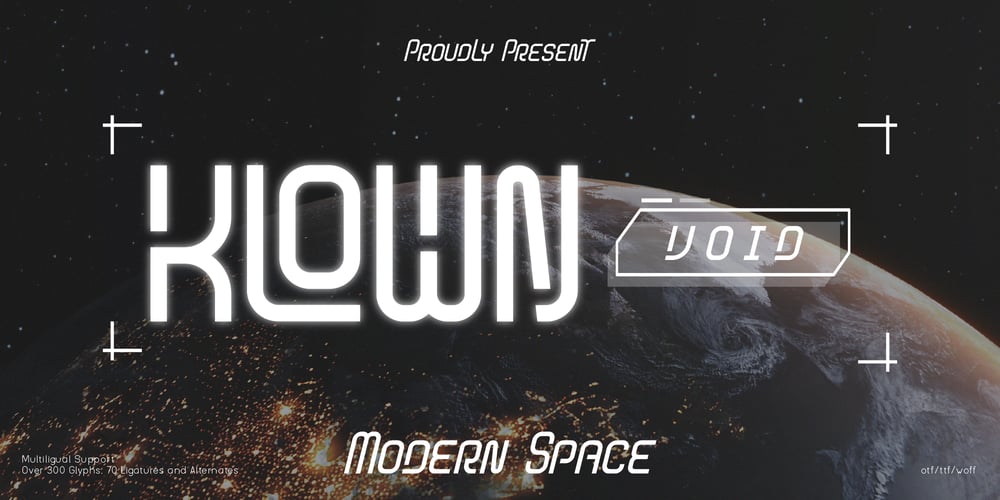
Klown Void
Klown Void font
Klown Void Font Family was designed by Dede Nugraha and published by Denustudio. Klown Void contains 2 styles and family package options. Klown Void | Modern Space Font, from Denustudios, suitable for any projects such as: logos, branding projects, homeware designs, product packaging, mugs, quotes, posters, shopping bags, t-shirts, book covers, name card, invitation cards, greeting cards, label, photography, watermark, special events, and all your other lovely projects that need a Modern Space Font taste.===========================================================================What’s Included : Regular and Italic Web Font Standard glyphs Alternate and Ligature Works on PC & Mac Simple installations Accessible in the Adobe Illustrator, Adobe Photoshop, Adobe InDesign, even work on Microsoft Word and Other Software. PUA Encoded Characters – Fully accessible without additional design software. Fonts include multilingual support Hope you enjoy with our font!